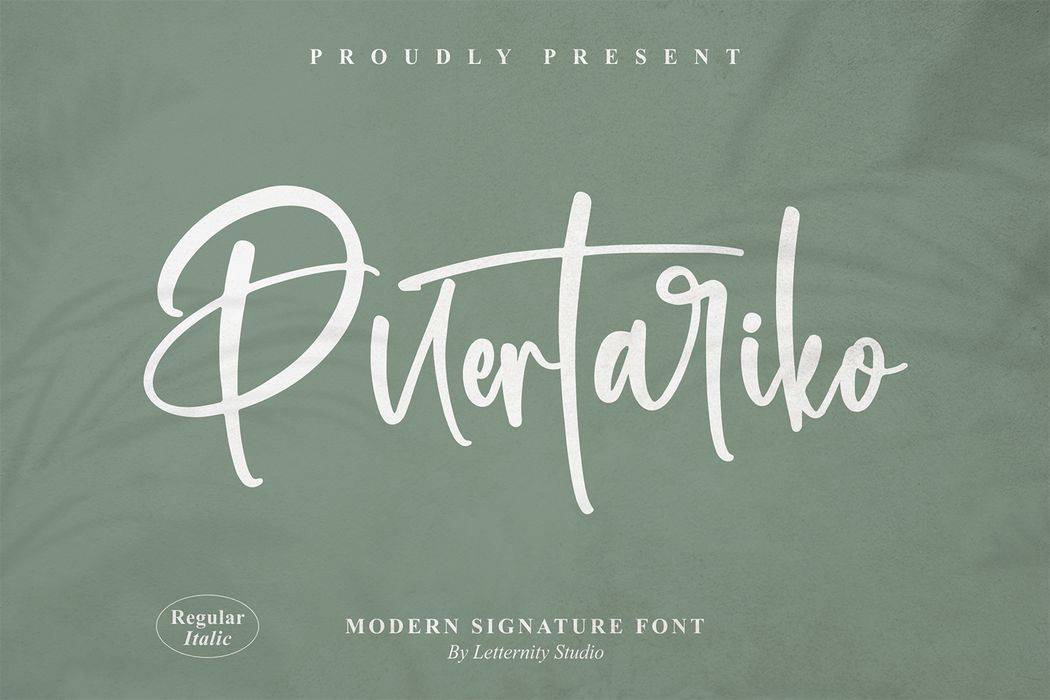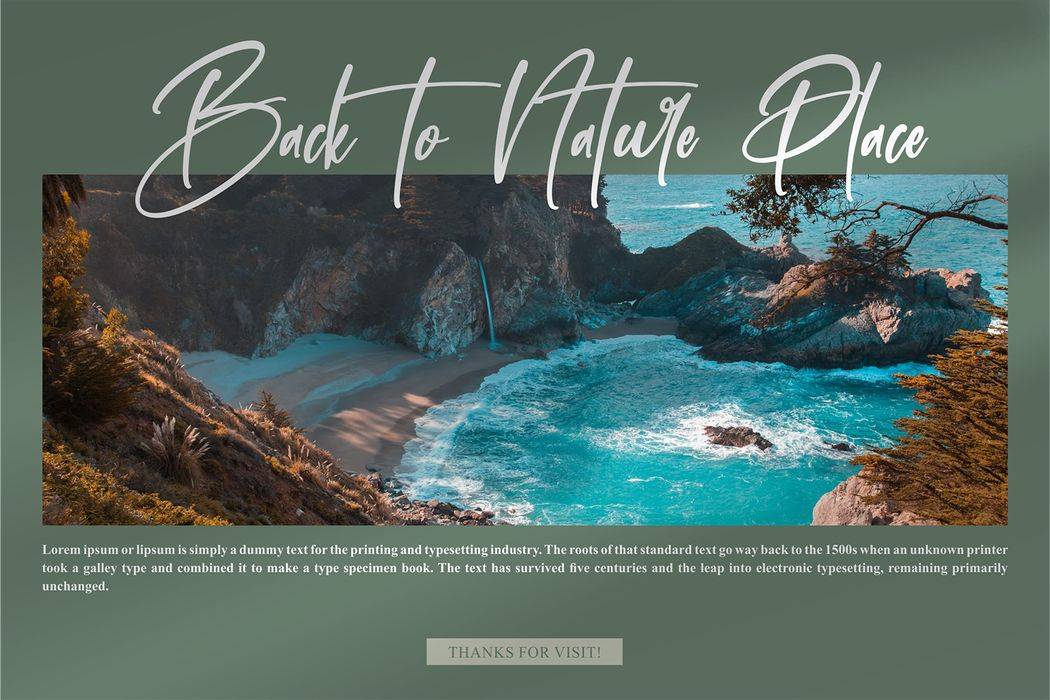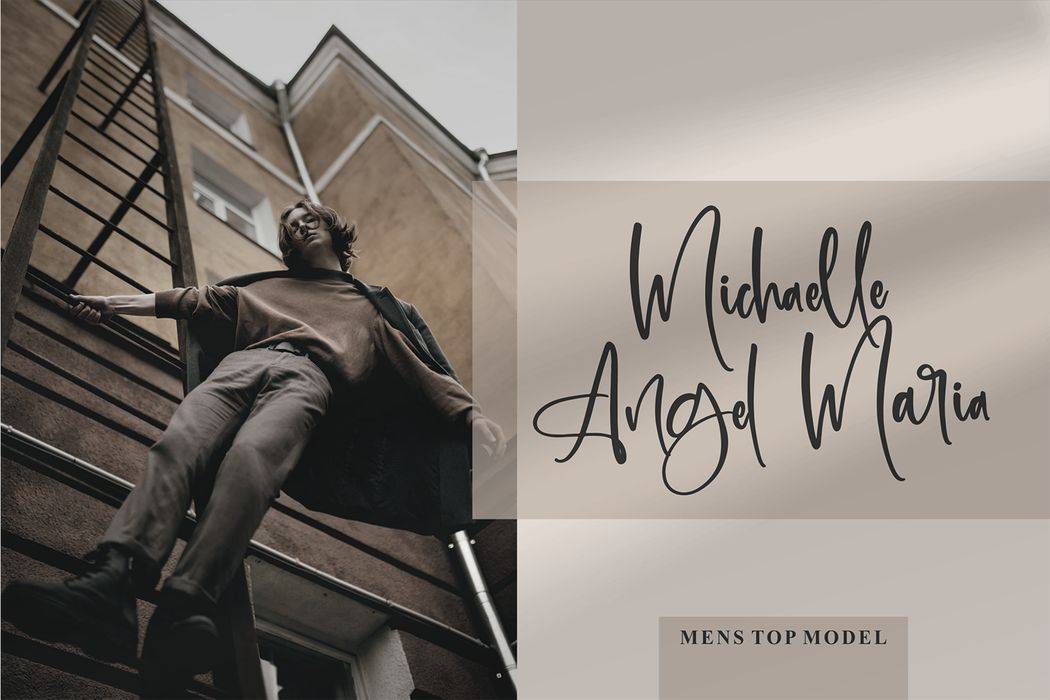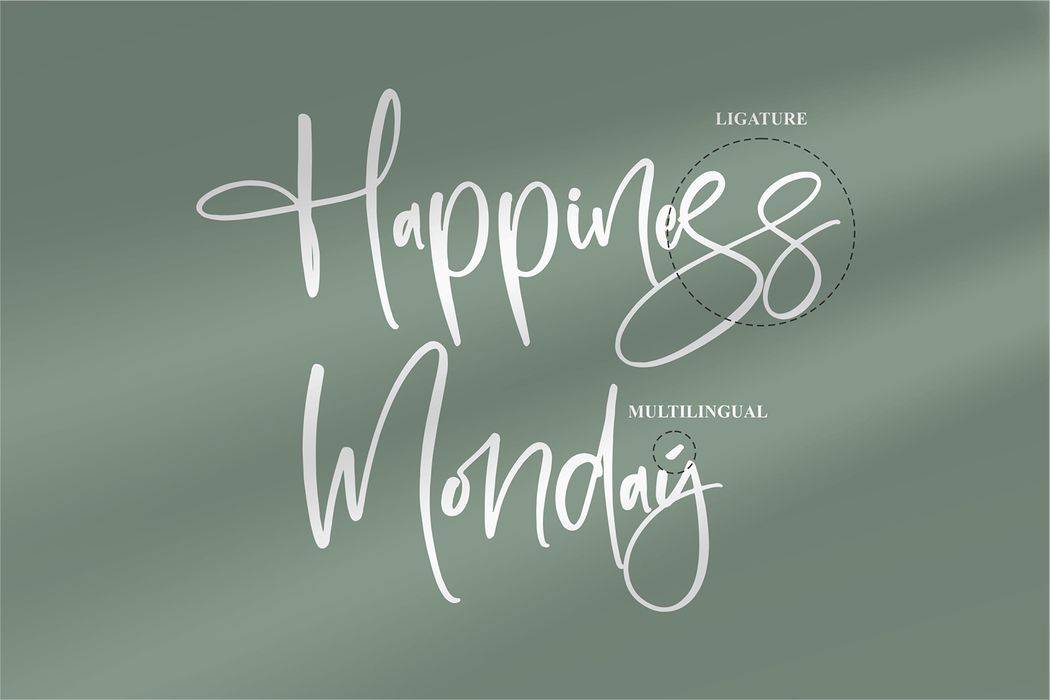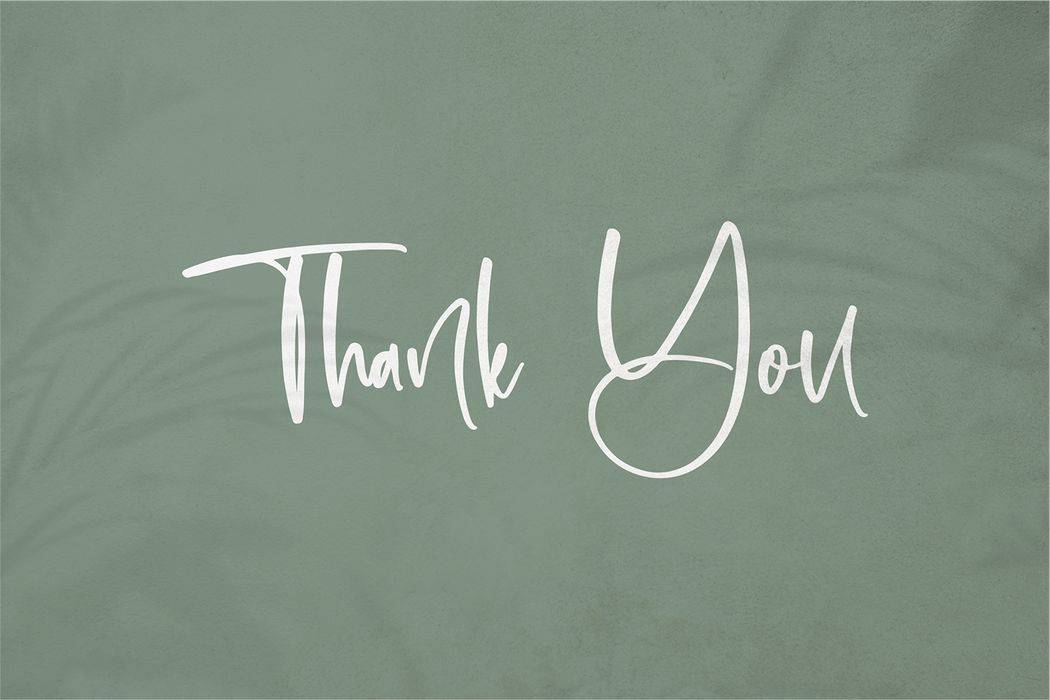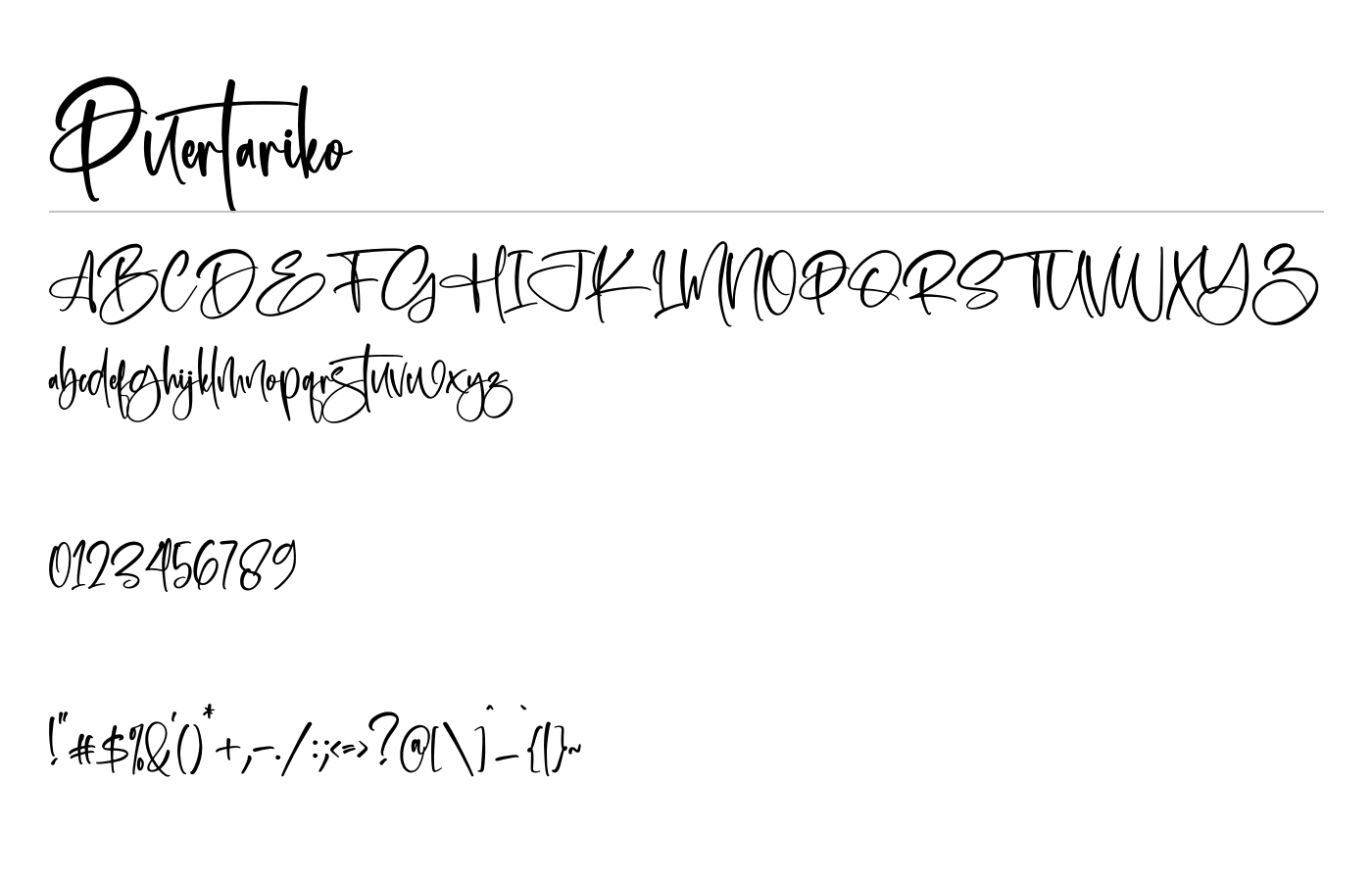
Puertariko is a lively, handwritten script font featuring a playful and casual style with varied stroke widths that create an energetic, authentic feel. Its tall, narrow letterforms with whimsical loops and flourishes make it perfect for creative projects like branding, invitations, and social media where a personal and artistic touch is desired. This font captures a friendly, approachable vibe that works well in headline use or decorative accents rather than long text.
Puertariko Font